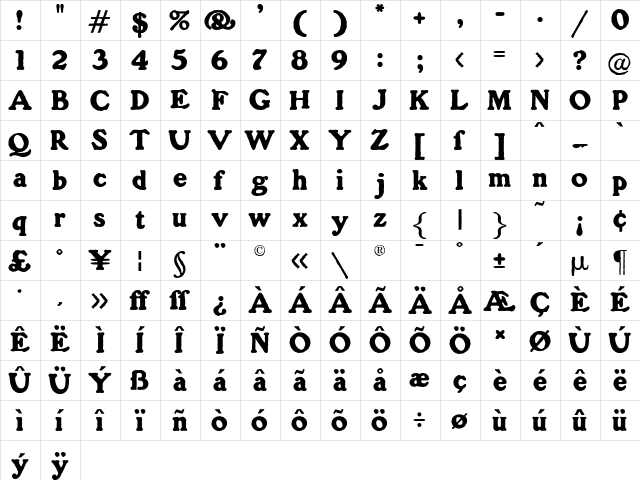
Gorilla Regular
Design Context for Gorilla Typeface
Gorilla takes a measured approach to typography — its balanced proportions and neutral character make it a reliable workhorse for both digital and print work.